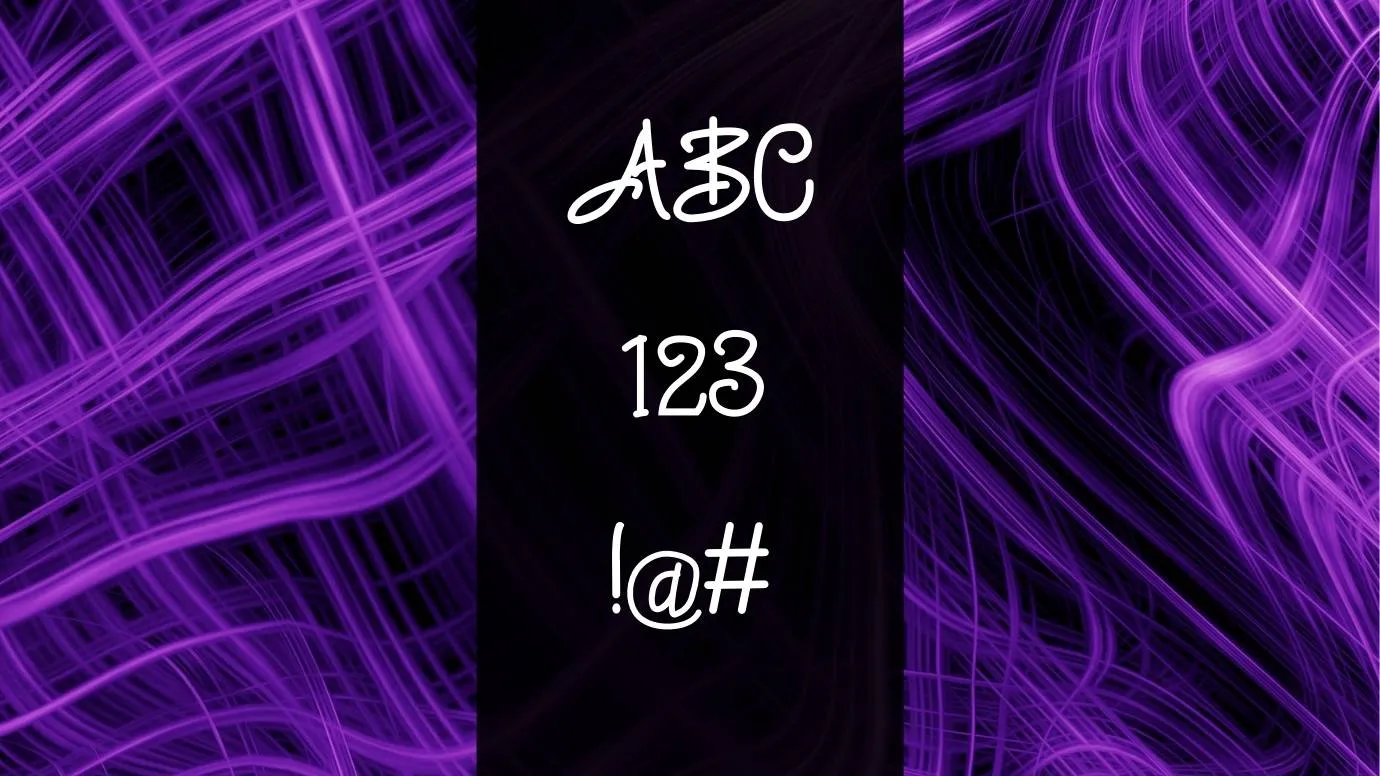
Baby Sophia Font is an advanced and new style of font, which is the group member of the script typeface family, and the style of this font is handwritten.
This texture is designed with the inspiration of beautiful handwriting. This typeface is released with a regular style of font, that had been designed by Anass Qara.
This is one of the modern styles of texture, which is the pairing and similar font to the Beautiful Creatures Font. This font is one of the amazing and readable styles of characters, that make it easy for the viewer and reader to read this continuously because Baby Sophia Font is one of the attractive and eye-catching textures. You can use this font for web designing which is HTML and CSS.
This modern and beautiful style of font is used for print and electronic media. You can use this typeface for wedding cards, invitation cards, and T-shirts design.
This is the best choice for graphic design and logo design. You can also use Baby Sophia Font for homeware design, advertisements, book covers, heading and titles, and many more.
This handwritten style of font is designed by a famous graphic designer, which is known, as Anass Qara.
This typeface family includes a single style, this regular style consists of glyphs, numbers, capital letters, small alphabets, punctuation, a set of characters, and a wide range of language support.
What font is Baby Sophia Font?
This typeface is a family member of the script typeface family, the style of this texture is handwritten. This typeface is designed with the inspiration of beautiful handwriting.
What font goes with Baby Sophia Font?
There are so many fonts to get a match with this font but, the most paired font is to this typeface is the Stoner font.
Who created the Baby Sophia typeface?
This handwritten style of font is designed by a famous graphic designer, which is known, as Anass Qara.